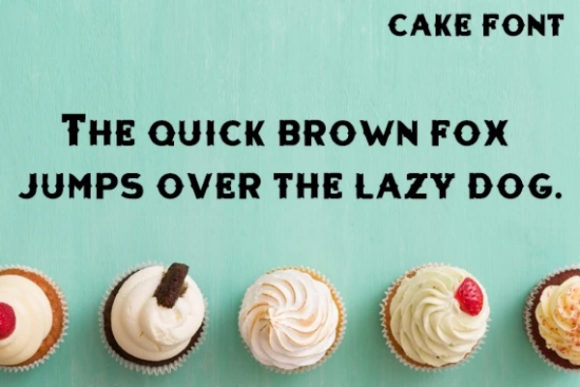
Cake Font: The Sweetest Addition to Your Design Collection
Are you on the hunt for a font that exudes warmth, friendliness, and approachability? Look no further than Cake Font, a bold display font that’s sure to become a staple in your design arsenal. With its carefully handcrafted design, Cake Font is the perfect choice for designers and crafters looking to add a touch of casual charm to their projects.
The Charm of Cake Font
Cake Font is more than just a pretty face – it’s a versatile typeface that’s designed to shine in any context. Its bold, yet down-to-earth design makes it incredibly readable, even on busy backgrounds or as a standalone headline. Whether you’re working on a branding project, a website design, or a craft project, Cake Font is the perfect choice for adding a touch of personality and whimsy.
What Makes Cake Font So Special?
So, what sets Cake Font apart from other display fonts on the market? Here are just a few features that make it a standout:
- Handcrafted design: Each letter has been carefully crafted to ensure a unique and authentic look that’s full of character.
- Casual charm: Cake Font has a friendly, approachable vibe that’s perfect for designs that need a touch of warmth and personality.
- Readability: Despite its bold design, Cake Font is incredibly readable, even at smaller sizes.
- Versatility: Whether you’re using it as a headline or as a body font, Cake Font is sure to shine in any context.
Using Cake Font in Your Designs
So, how can you use Cake Font in your designs? Here are a few ideas to get you started:
- Branding projects: Use Cake Font as a logo font or as a headline font to add a touch of personality to your brand.
- Website design: Cake Font is perfect for website headers, titles, and other design elements that need a bold, yet friendly look.
- Craft projects: Whether you’re working on a DIY craft project or a commercial design, Cake Font is a great choice for adding a touch of whimsy and charm.
- Social media graphics: Use Cake Font to create eye-catching social media graphics that are sure to grab attention.
Tips for Getting the Most Out of Cake Font
Here are a few tips for getting the most out of Cake Font:
- Experiment with colors: Cake Font looks great in a variety of colors, so don’t be afraid to experiment and find the perfect hue for your design.
- Play with textures: Add some texture to your design by pairing Cake Font with a textured background or overlay.
- Mix and match: Don’t be afraid to mix and match Cake Font with other fonts to create a unique and interesting look.
In conclusion, Cake Font is a bold display font that’s sure to become a favorite in your design collection. With its carefully handcrafted design, casual charm, and versatility, it’s the perfect choice for designers and crafters looking to add a touch of personality and whimsy to their projects. Whether you’re working on a branding project, a website design, or a craft project, Cake Font is sure to shine in any context.